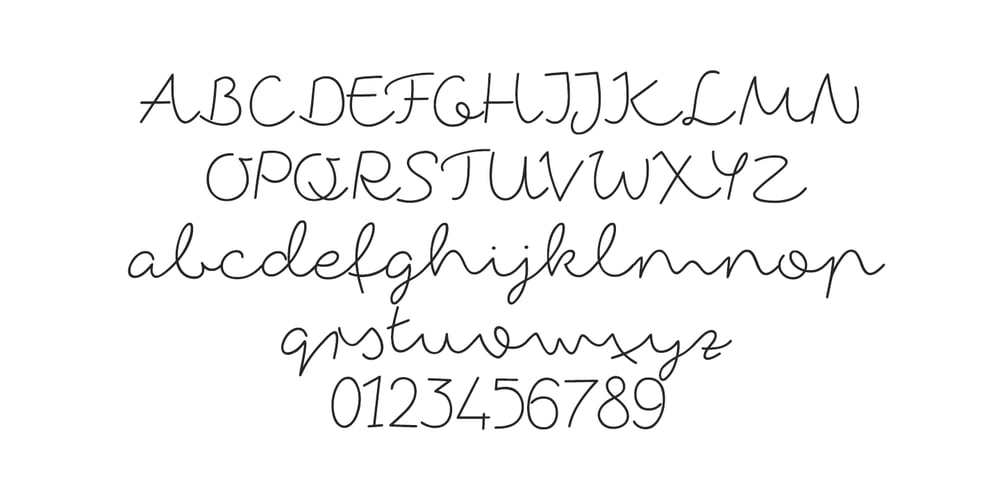
Fox in the snow Font Family was designed by Roland Hüse and published by Roland Hüse Design. Fox in the snow contains 1 styles and family package options. FOX IN THE SNOW is a cursive, casual handwriting font.Please contatct me if you have any questions, requests or feedback.